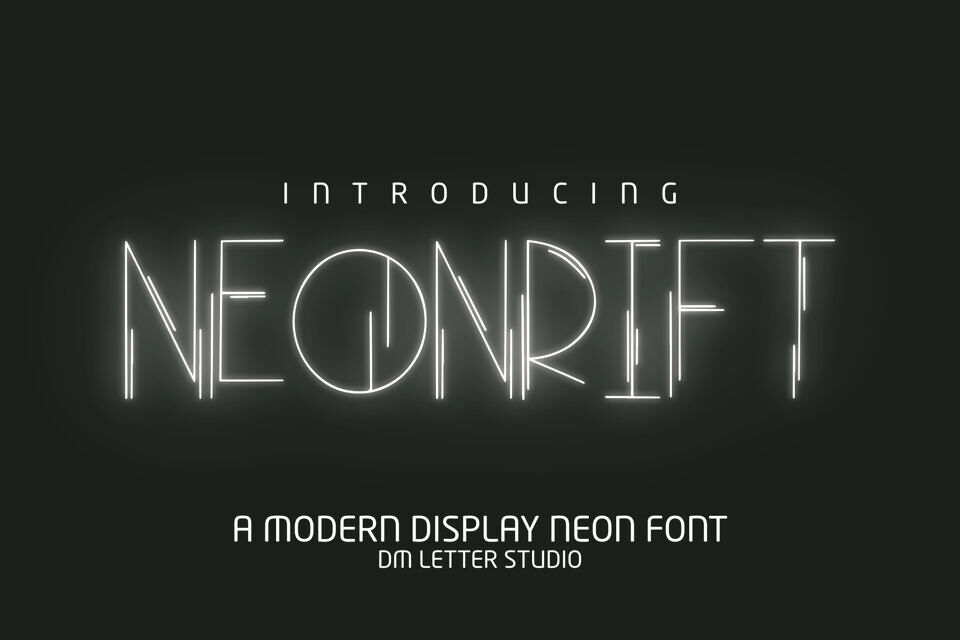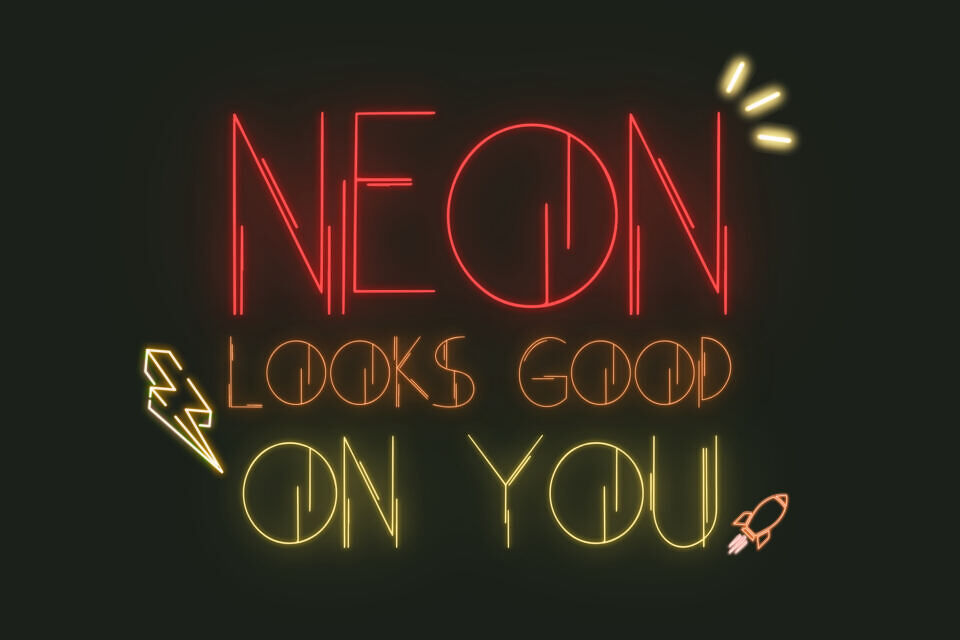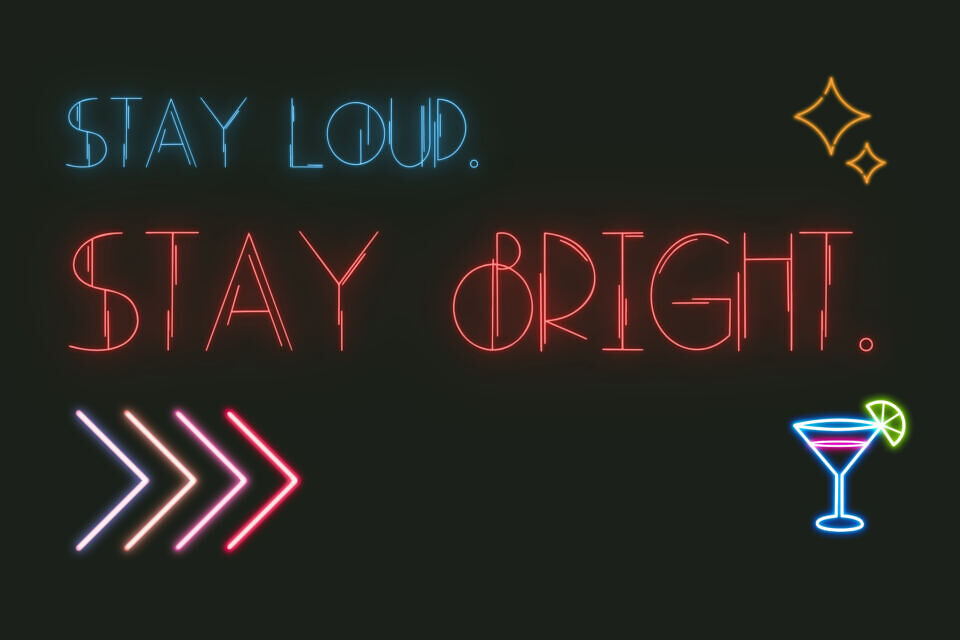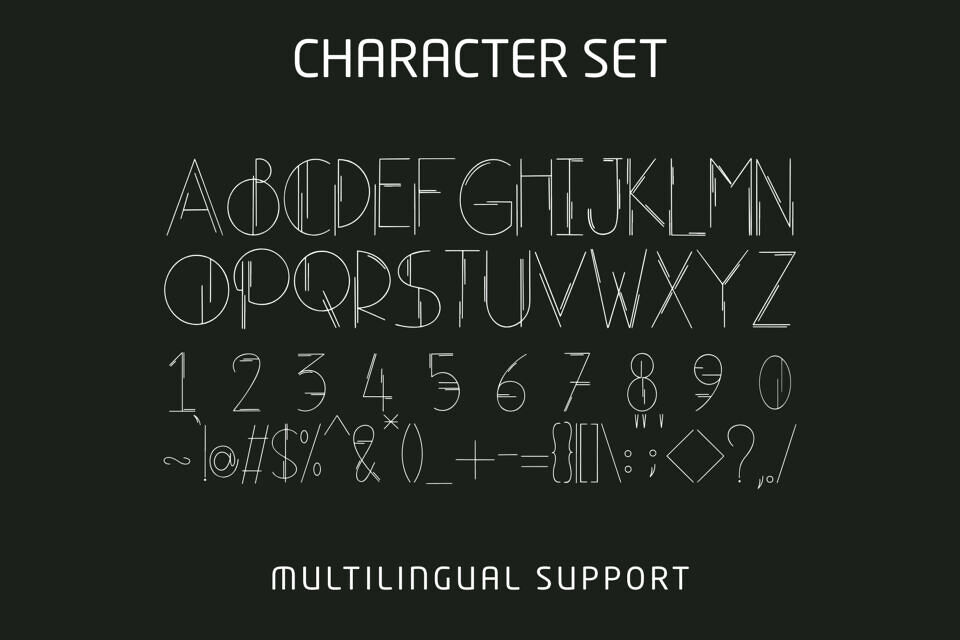
Neonrift is a display font with a sharp, electric vibe made for designs that need instant attention. It brings a neon sign energy with strong shapes and a confident presence, so your headlines feel modern and high-impact.
Because the letterforms stay balanced and open, Neonrift remains readable on posters, thumbnails, and banners, even at smaller sizes. Use it for nightlife branding, music posters, gaming headers, tech promos, product launches, and social graphics. As a result, your designs look futuristic and ready for the spotlight.